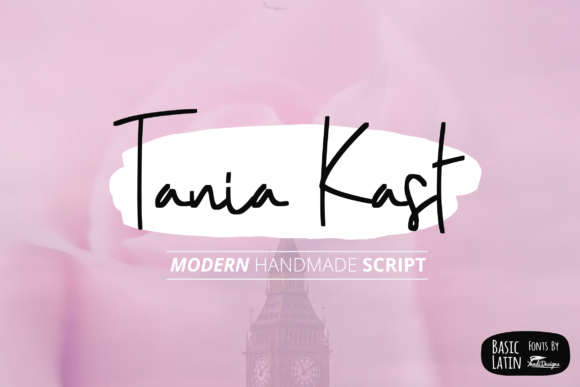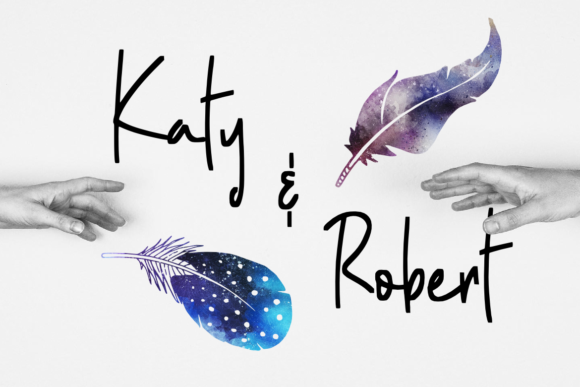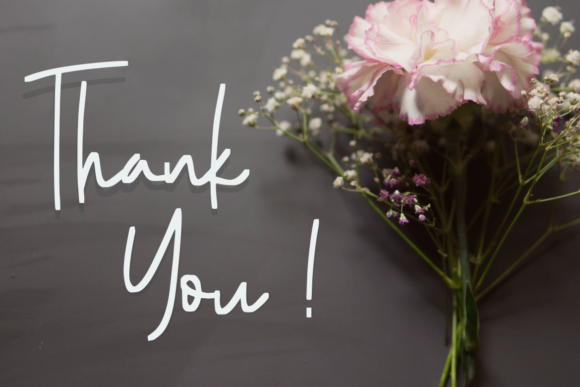
Tania Kast Font
About Tania Kast Font
Tania Kast is a cute and stylish handwritten font. Use it in a wide variety of applications such as logos, book covers, product presentations and much more.